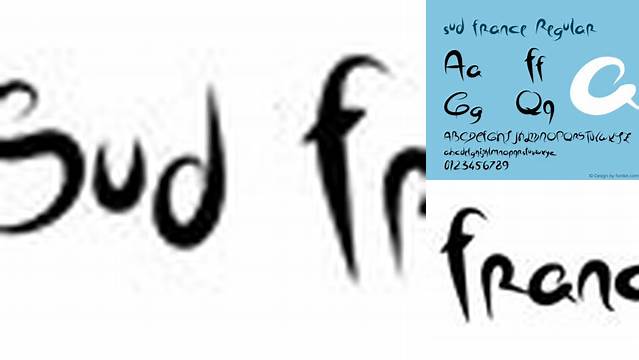
Are you looking to add a touch of French elegance to your design projects? The Sud France font might just be the perfect solution! This font exudes a certain je ne sais quoi, blending classic charm with a modern twist. In this comprehensive guide, we'll delve into everything you need to know about the Sud France font, including its characteristics, ideal uses, and, most importantly, how to download it for free. So, whether you're a seasoned designer or just starting out, buckle up and get ready to explore the world of Sud France! First, let’s understand what makes the Sud France font so special. Its distinctive letterforms, with their subtle curves and elegant lines, evoke the romantic spirit of Southern France. The font family often includes various weights and styles, from light and airy to bold and impactful, giving you the versatility to use it across a wide range of projects. Imagine using it for wedding invitations, branding materials, or even website headers – the possibilities are endless! But before you rush off to download it, it’s essential to consider its licensing. While many websites offer free fonts, it’s crucial to ensure that the license allows for your intended use, whether it’s for personal or commercial projects. We’ll guide you through the intricacies of font licensing to help you avoid any legal pitfalls. Next, we’ll explore the best websites and resources for finding free downloads of the Sud France font. We’ll share tips on how to identify reputable sources and avoid downloading fonts from unreliable websites that may contain malware or other security threats. Downloading fonts from trusted sources is paramount to ensure the safety of your computer and your projects. Moreover, we’ll provide step-by-step instructions on how to install the Sud France font on your computer, whether you’re using Windows or macOS. The installation process is usually straightforward, but we’ll cover any potential issues you might encounter and how to resolve them. So, by the end of this guide, you’ll be well-equipped to find, download, and install the Sud France font, ready to infuse your designs with a touch of French sophistication. Let's dive in and explore the world of Sud France!
What Makes Sud France Font Unique?
The Sud France font stands out due to its unique blend of classic and contemporary design elements. The font’s character lies in its elegant letterforms, which often feature a delicate balance of thick and thin strokes. This creates a visual rhythm that is both pleasing to the eye and highly legible. You'll often find subtle serifs – those little decorative strokes at the ends of the letters – that add a touch of traditional elegance, but they're not overly pronounced, ensuring the font maintains a modern feel. Think of it as the perfect embodiment of French chic: sophisticated yet understated. The uniqueness of Sud France also stems from its versatility. It's not just a single font; it's often a font family, which includes various weights and styles. You might find versions like Sud France Light, Regular, Bold, and even Italic. This range allows you to use the font in various contexts, from body text to headlines, without losing visual consistency. Imagine using Sud France Light for elegant invitations and Sud France Bold for eye-catching headlines – the possibilities are truly diverse. One of the key factors that contribute to Sud France's uniqueness is its ability to evoke a specific mood or atmosphere. It instantly transports you to the sun-drenched landscapes of Southern France, with its rolling hills, vineyards, and charming villages. This makes it a fantastic choice for projects that aim to convey a sense of warmth, sophistication, and timeless elegance. Whether you're designing a logo for a boutique hotel, creating marketing materials for a French restaurant, or crafting a website for a travel agency, Sud France can help you capture the essence of French style. Furthermore, the spacing and kerning (the space between individual letters) in Sud France are carefully considered, contributing to its overall legibility and visual appeal. The letters are designed to work together harmoniously, creating a smooth and flowing reading experience. This attention to detail is what truly sets Sud France apart from other fonts. It's not just about the individual letter shapes; it's about how they interact and create a cohesive whole. In essence, the Sud France font is more than just a typeface; it's a design asset that can add character, personality, and a touch of French flair to your projects. Its unique combination of elegance, versatility, and visual appeal makes it a popular choice among designers who are looking to create something truly special.
Best Uses for Sud France Font: Design Inspiration
Now that you've got the Sud France font installed and ready to go, let's brainstorm some fantastic ways you can use it! This font's unique blend of classic and contemporary style makes it incredibly versatile, but it truly shines in projects that call for a touch of elegance, sophistication, or a hint of French flair. Think of Sud France as your secret weapon for creating designs that are both timeless and chic. One of the most natural and striking uses for Sud France is in wedding invitations and stationery. Its delicate serifs and graceful letterforms exude romance and sophistication, making it the perfect choice for setting the tone for a special occasion. Imagine using Sud France for the main invitation text, the guest names, or even for creating elegant monograms. Pair it with soft colors like blush pink, ivory, or gold for a truly luxurious feel. Beyond weddings, Sud France is also an excellent choice for branding materials. If you're working on a brand that wants to convey a sense of quality, sophistication, or heritage, Sud France can help you achieve that. Think of high-end boutiques, luxury hotels, or artisanal food brands. A logo set in Sud France can instantly elevate the brand's image and create a sense of exclusivity. In the realm of web design, Sud France can be used to create visually appealing headers and titles. Its legibility and elegant appearance make it a great choice for drawing the reader's eye and creating a strong first impression. However, it's important to use it sparingly in body text, as its decorative nature might make long passages of text a bit challenging to read. Pair it with a clean and simple sans-serif font for the body text to create a balanced and harmonious design. Sud France also lends itself beautifully to print materials like brochures, magazines, and posters. Its versatility allows it to be used for both headlines and body text (in shorter blocks), making it a valuable asset for print designers. Consider using it for fashion magazines, travel brochures, or art exhibition posters. When it comes to packaging design, Sud France can add a touch of elegance and sophistication to your product labels and boxes. It's particularly well-suited for products that are positioned as high-end or artisanal, such as gourmet foods, wines, or perfumes. A beautifully designed label featuring Sud France can help your product stand out on the shelf and attract discerning customers. Furthermore, Sud France can be used to create stunning social media graphics. Whether you're designing Instagram posts, Facebook ads, or Twitter headers, Sud France can help you create visuals that are both eye-catching and on-brand. Use it for quotes, announcements, or promotional messages to add a touch of elegance to your social media presence. In essence, the best uses for Sud France font are those that leverage its unique combination of classic and contemporary style. It's a font that's perfect for projects that demand elegance, sophistication, and a touch of French charm. So, go ahead and experiment with it in your designs – you might just be surprised at the beautiful results you can achieve!